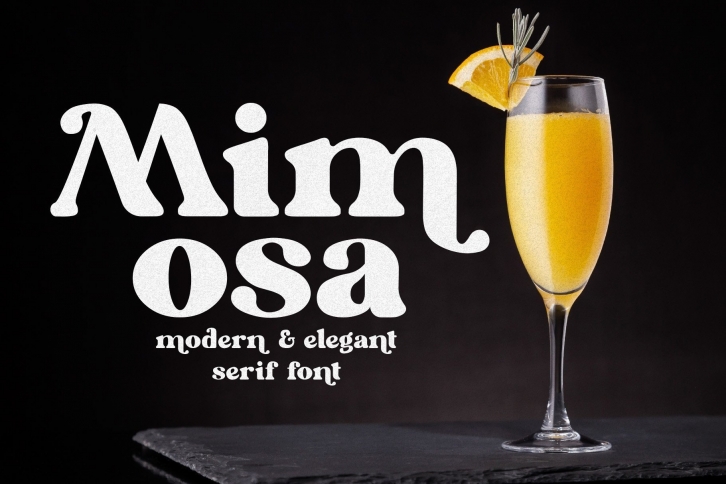
Mimosa is a gorgeous serif font that has a modern and retro look. It’s perfect for creating that 1950s, 1960s, or 1970s design look. Mimosa is well-suited for advertising, branding, logotypes, packaging, titles, headlines, and editorial designs. Enjoy!